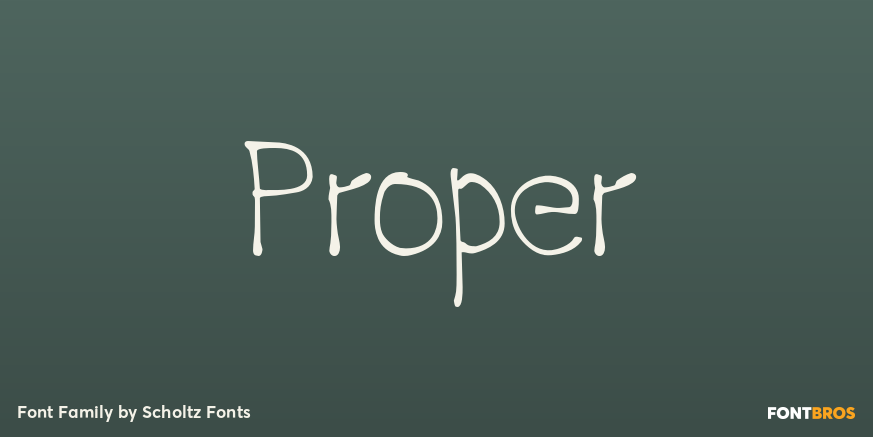
Proper
About Proper
Proper was based on handwritten characters (of my own) that I scanned and then digitally touched up. I kept the digital editing to a minimum so as to preserve the freshness of the original. I did, however, want to convey a sense of propriety and regularity…